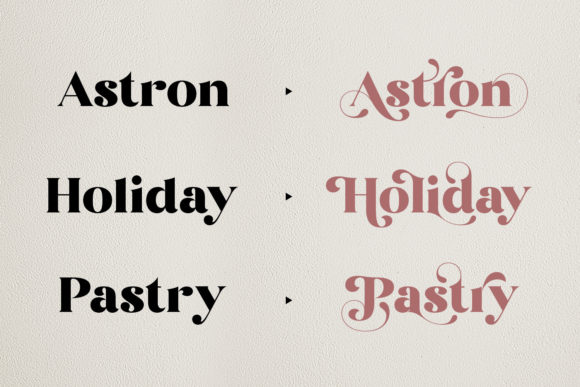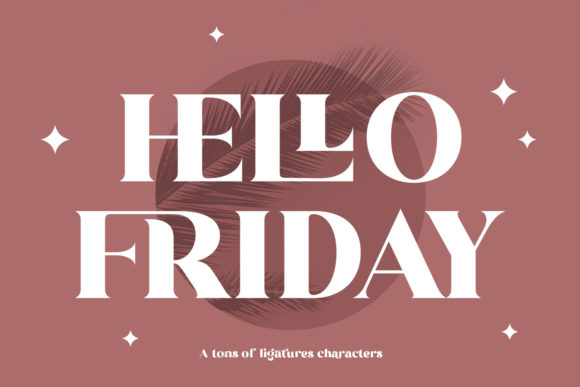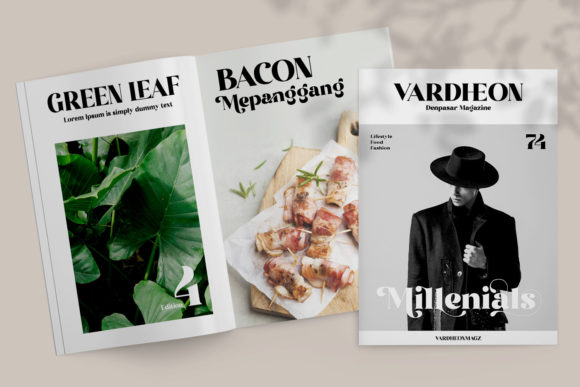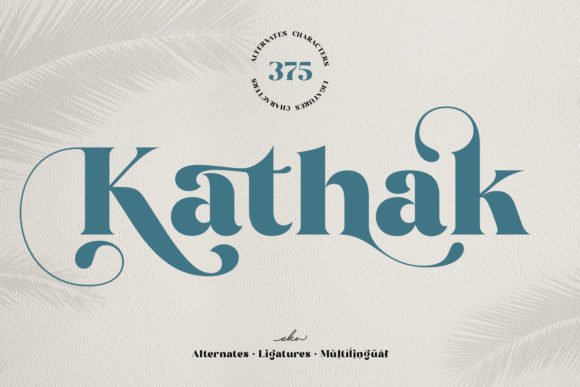
Introduction to Kathak Font
Kathak is an exquisite serif font carefully crafted to bring beauty to your designs.
Versatile and elegant, this font will look amazing on your logos, branding, posters, magazines, labels, merchandise, invitations, presentations, advertising, quotes and many more.
Why Choose Kathak Font?
Kathak Font offers exceptional quality and versatility, making it a valuable addition to your design toolkit. Whether you’re creating for personal projects or commercial use, Kathak Font delivers professional results.